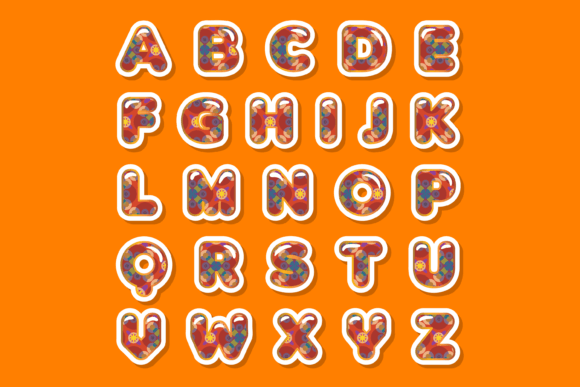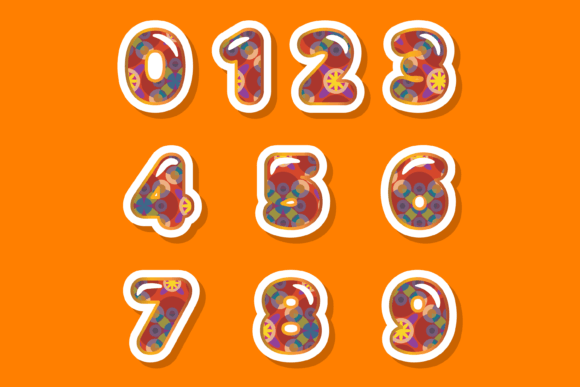
Adding a Touch of Personality with Area Rug Font
Do you ever get that feeling of excitement when you stumble upon a design idea that just clicks? For me, it’s the moment when I find the perfect font to bring my creative vision to life. Recently, I discovered the Area Rug Font, and I just couldn’t wait to share it with fellow designers and crafty enthusiasts. This incredibly cool color font is a game-changer for anyone looking to add a unique touch to their custom designs, DIY crafts, or any other project that requires a little extra love.
The Area Rug Font is a versatile tool that can be used in a variety of creative settings, from graphic design to paper crafting. Its compatibility with popular design software like PhotoShop, Illustrator, Silhouette, and Inkscape makes it a valuable asset for designers of all levels. Whether you’re a seasoned pro or a DIY novice, this font is sure to bring a smile to your face and a professional touch to your projects.
Area Rug Font Key Features
- Size: Multi-weight family with 12 styles, ranging from 100 to 900
- Resolution: Scalable to any resolution, ideal for digital and print use
- Unique Characteristics: Organic, textured, and hand-drawn feel, reminiscent of an area rug
- Language Support: Supports over 200 languages, including Latin, Cyrillic, and Greek
- Kerning and Ligatures: Includes advanced kerning and ligature pairs for improved readability
Area Rug Font Review
I recently had the chance to dive into the Area Rug Font, and here’s my honest take on it. ✨ First off, I love the playful and whimsical vibe that this font exudes. The rounded shapes and soft edges create a warm and inviting atmosphere, perfect for design projects that need a touch of personality.
The font is highly versatile and can be used in a variety of contexts, from children’s books to branding materials. The designer has done an excellent job of balancing friendliness with legibility, making it easy to read even at smaller font sizes.
However, there are a few limitations to consider. ⚠️ The font may not be the best choice for formal or professional projects, as it can come across as too casual. Additionally, the font’s rounded shapes can sometimes make it difficult to distinguish between similar characters.
- Playful and whimsical vibe
- Highly versatile
- Excellent legibility
- May not be suitable for formal or professional projects
- Can be difficult to distinguish between similar characters
Overall, the Area Rug Font is a great choice for design projects that need a touch of personality and friendliness. While it may not be the best fit for every project, it’s definitely worth considering for those looking for a playful and versatile font.
Area Rug Font is perfect for:
- Designing home decor and furniture graphics.
- Creating playful and whimsical branding materials.
- Adding a touch of nostalgia to digital projects.
Alternatives to Area Rug Font
Lobster is a script font that can add a touch of elegance to your designs. It is perfect for use in titles, headings, and other text where a handwritten feel is desired. Compared to Area Rug Font, Lobster has a more refined and sophisticated look, making it suitable for high-end designs.
Pacifico is a beautiful script font that can add a sense of relaxation and calmness to your designs. It is ideal for use in designs where a beachy or tropical vibe is desired. Compared to Area Rug Font, Pacifico has a more laid-back and casual look, making it perfect for designs that require a carefree feel.
Great Vibes is a modern script font that can add a sense of sophistication and elegance to your designs. It is perfect for use in titles, headings, and other text where a high-end look is desired. Compared to Area Rug Font, Great Vibes has a more refined and polished look, making it suitable for designs that require a touch of luxury.